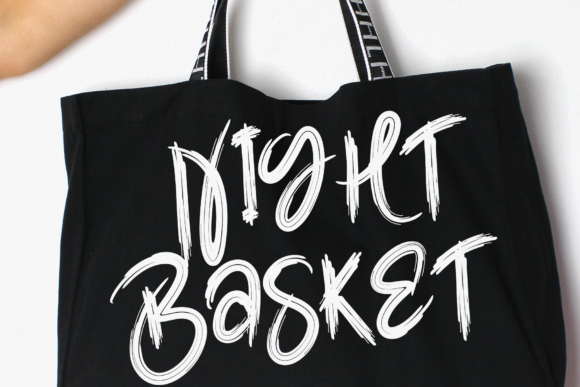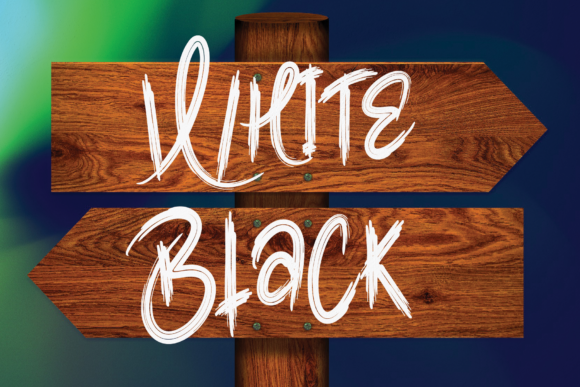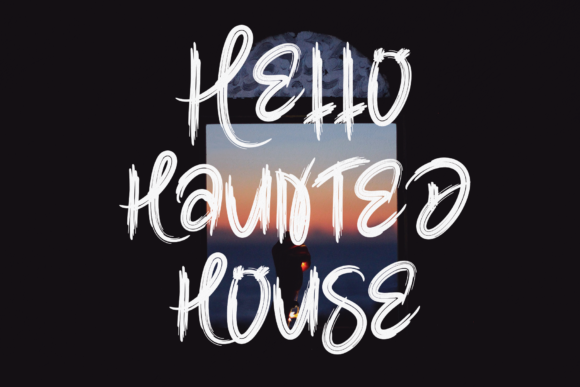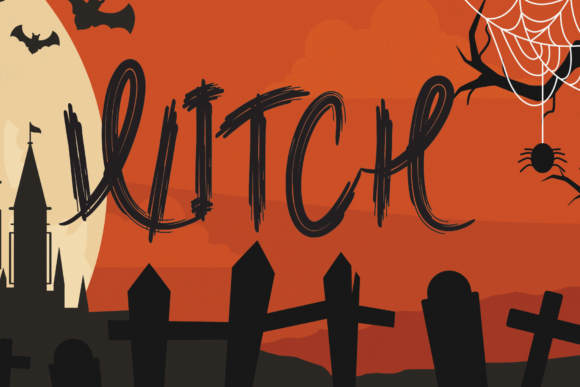
Happy Halloween Font
About Happy Halloween Font
Happy Halloween in an interesting and fun handwritten font that embodies playfulness and a scary feel! Use it for any project that requires a spooky feel and an authentic look!